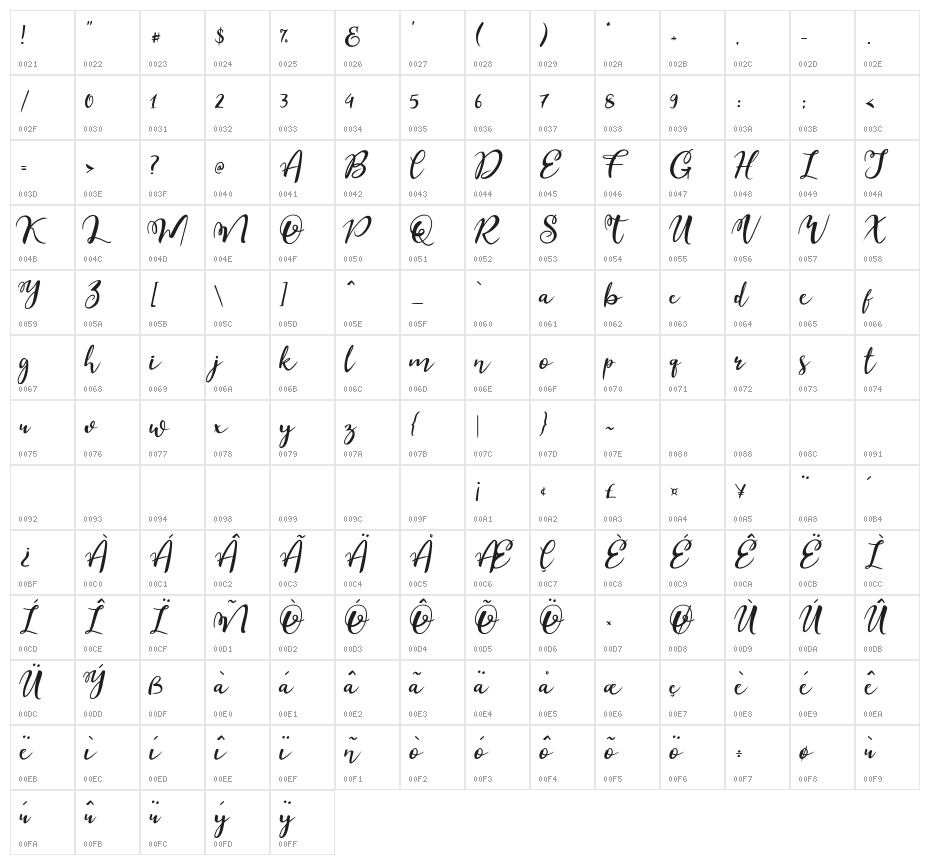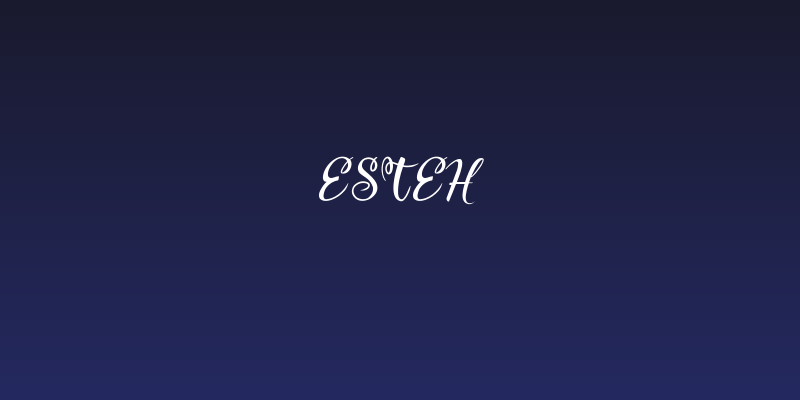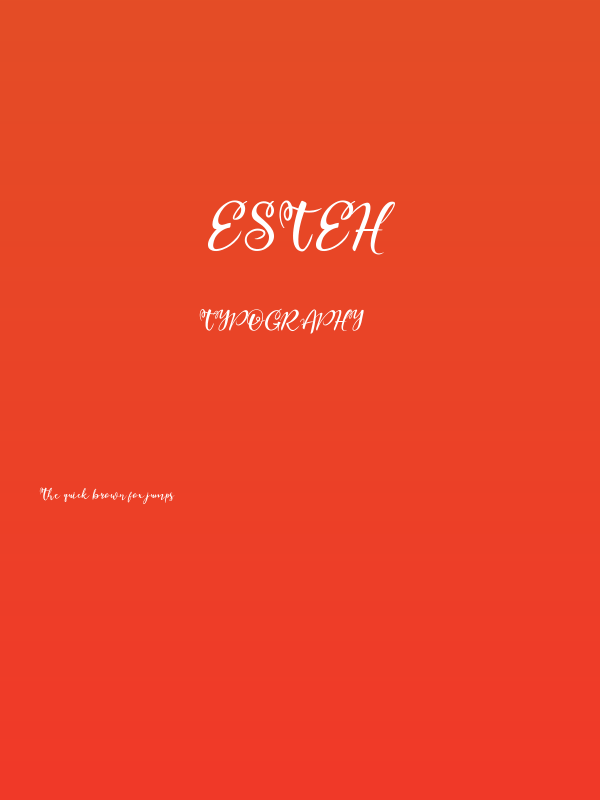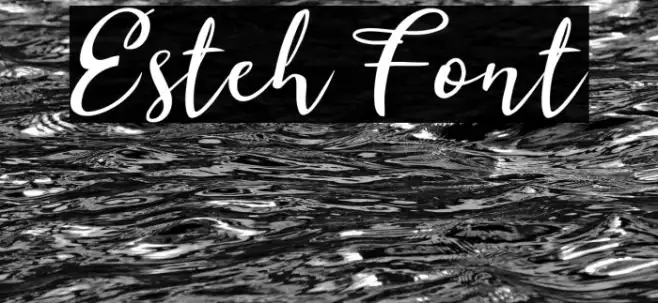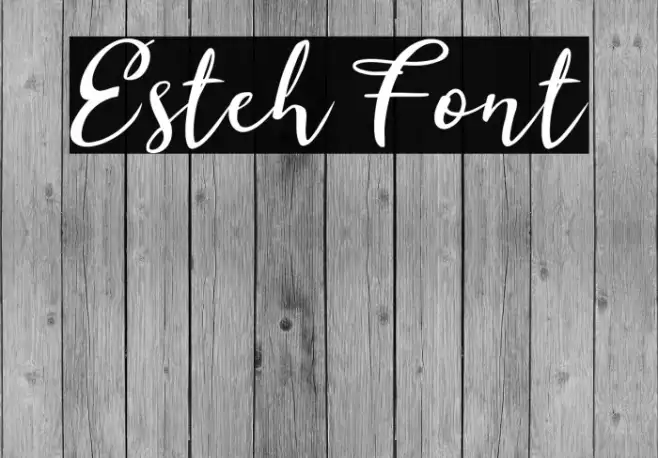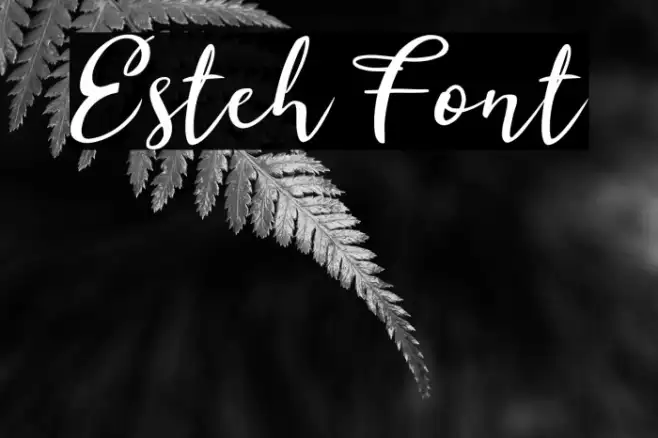
Esteh Font
Esteh Description
This font features a flowing, cursive style with elegant, sweeping strokes that give it a handwritten appearance. The uppercase letters are characterized by their dramatic loops and flourishes, while the lowercase letters maintain a more consistent baseline with gentle curves. The numerals and special characters are designed to complement the overall script style, maintaining the same fluidity and grace. This font exudes a sense of sophistication and charm, making it ideal for projects that require a personal, artistic touch.